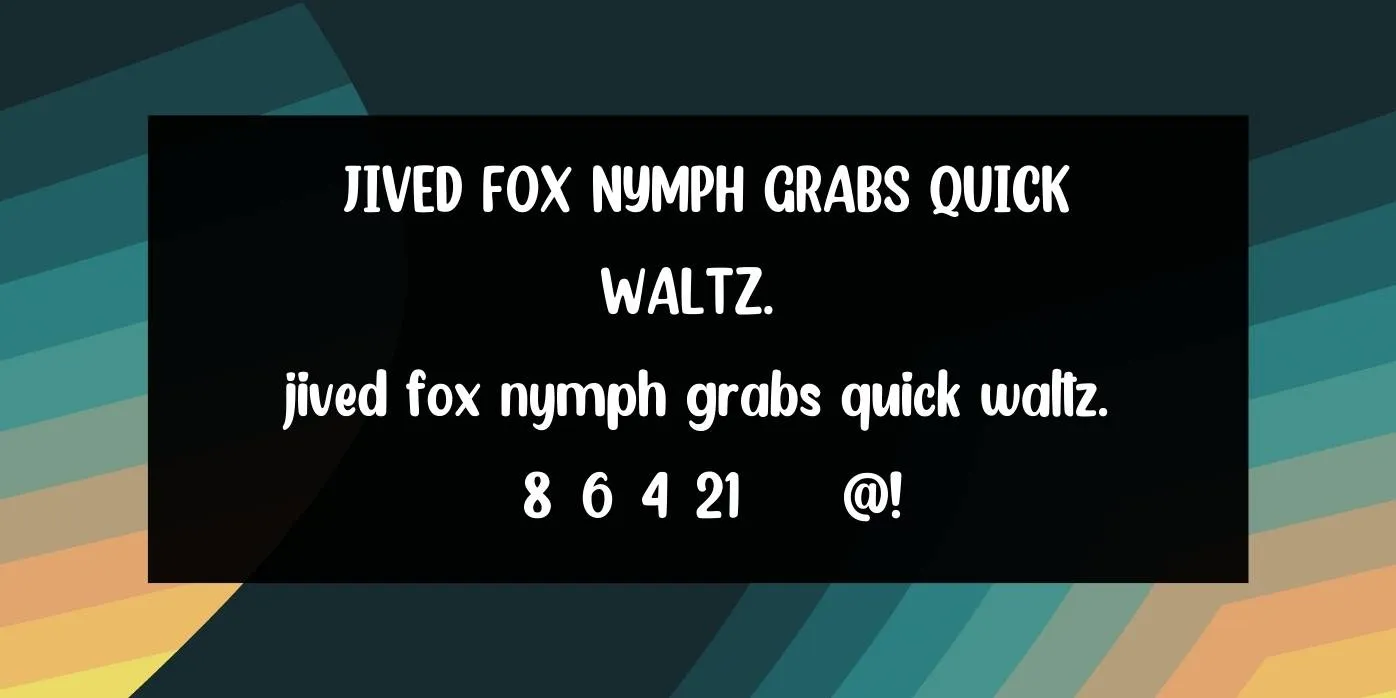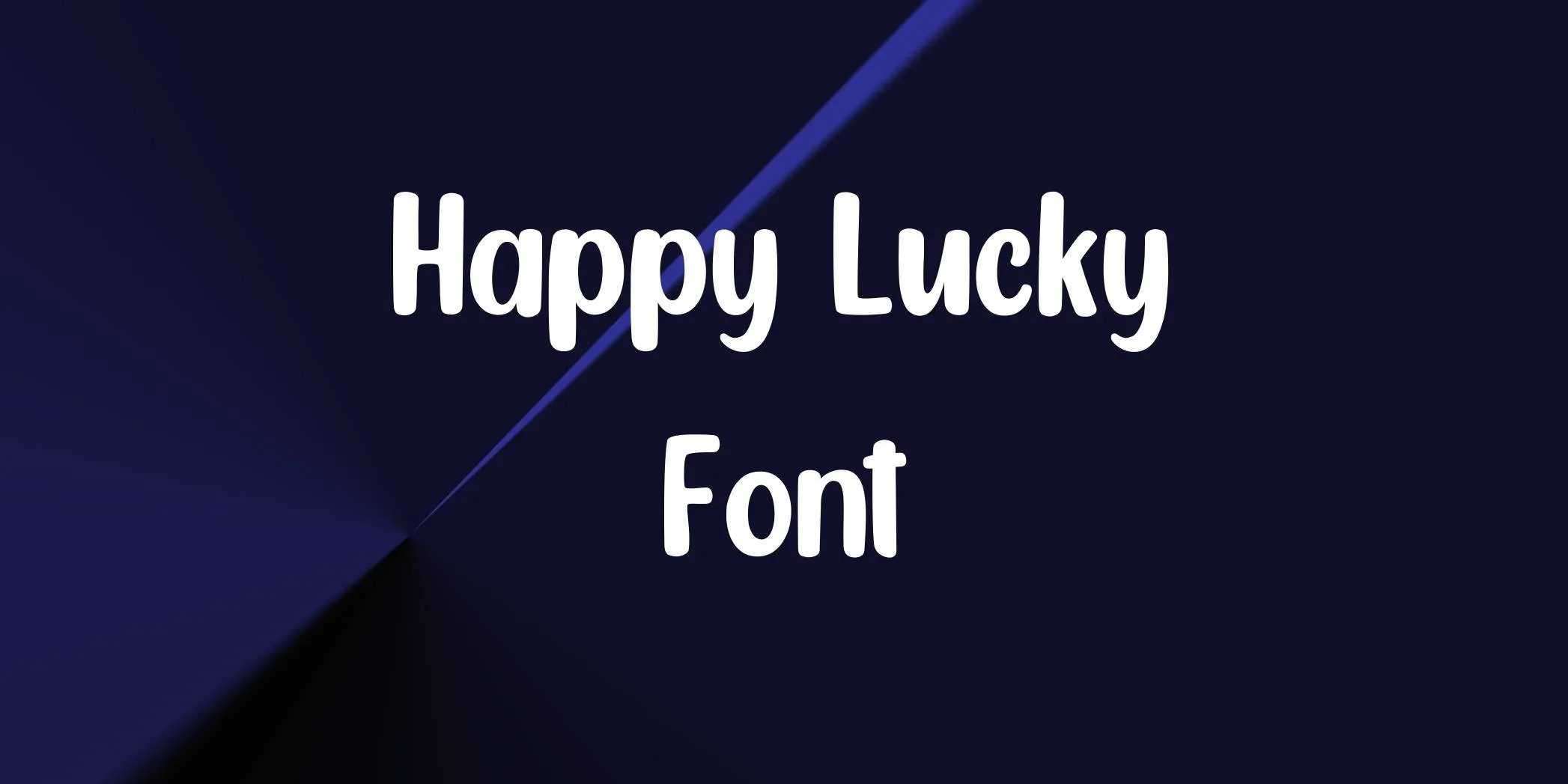
Happy Lucky Font
Happy Lucky Font is a fancy that was created by Zhiwei Zhu. It was first released in 2006 and has since been used extensively in both digital and print media. The font is characterized by its unique and playful letterforms, which are often compared to the work of Chinese calligraphy. Zhu is a professor at the China Central Academy of Fine Arts and has been designing typefaces for over 20 years.
His other notable works include the Ming Gothic and Hei Ti typefaces. The font’s name was chosen to represent the positive and joyful nature of the character.s This Font is available in both regular and bold weights and includes support for Simplified Chinese, Traditional Chinese, Japanese, and Korean character sets. You can give your designs a marvelous touch then try to pair billabong font and make your designs astonishing.